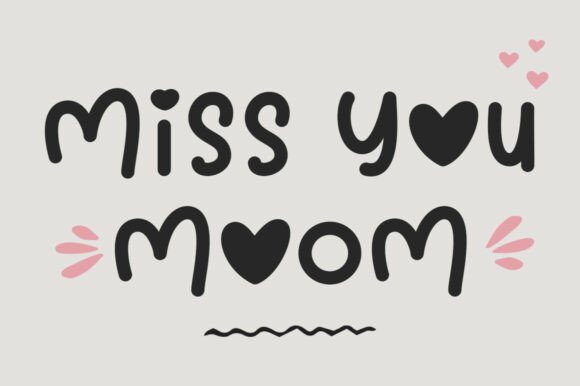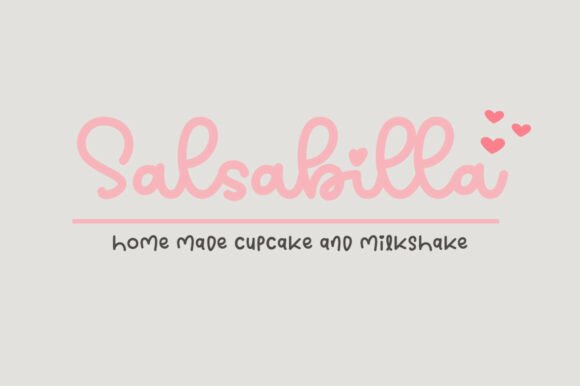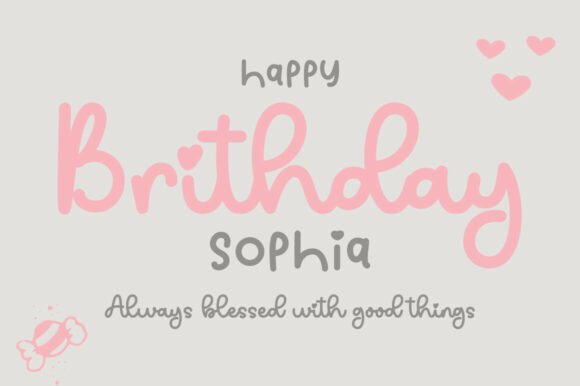
Introduction to Meong Kitty Duo Font
Double the charm with Meong Kitty, a delightful and unique font duo that brings a playful, animal-inspired energy to your designs.
The Meong Kitty font set includes a chunky, bubble-style display face and a complementary monoline script, allowing for perfect harmony in every layout Designed with adorable paw prints and heart accents, this Meong Kitty typeface is the ultimate choice for pet-themed branding, nursery decor, and children’s merchandise.
Key Features of Meong Kitty Duo Font
Why Choose Meong Kitty Duo Font?
Meong Kitty Duo Font offers exceptional quality and versatility, making it a valuable addition to your design toolkit. Whether you’re creating for personal projects or commercial use, Meong Kitty Duo Font delivers professional results.